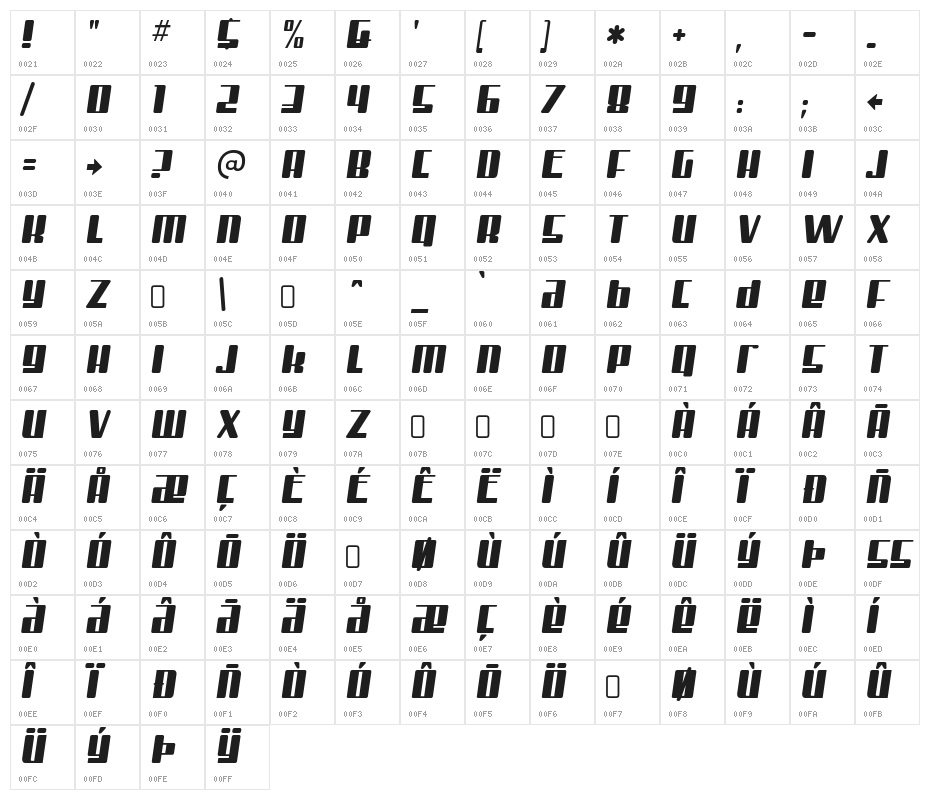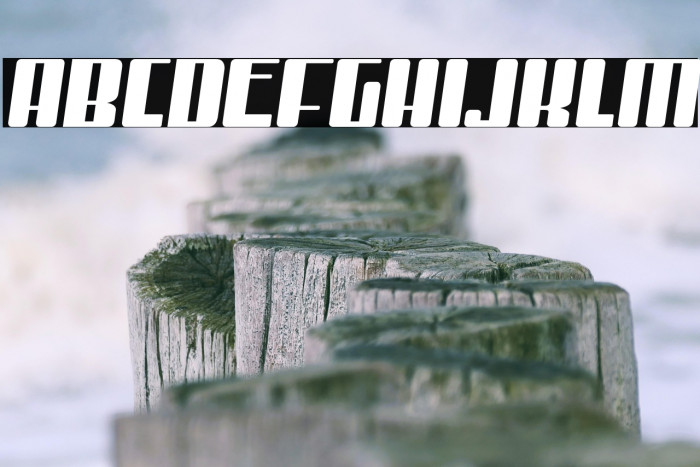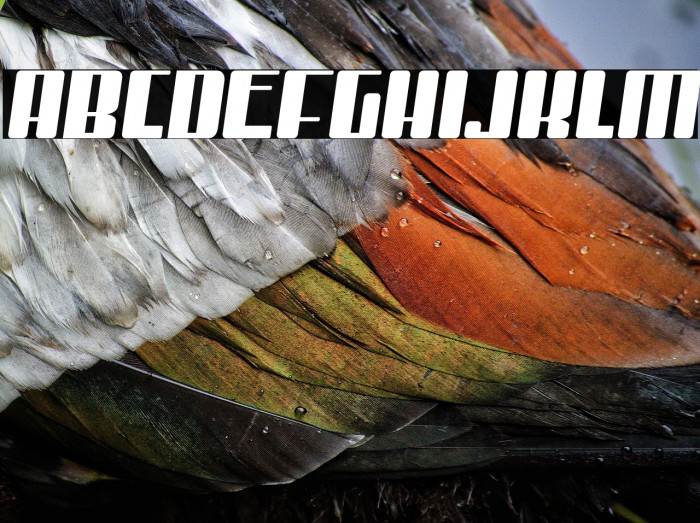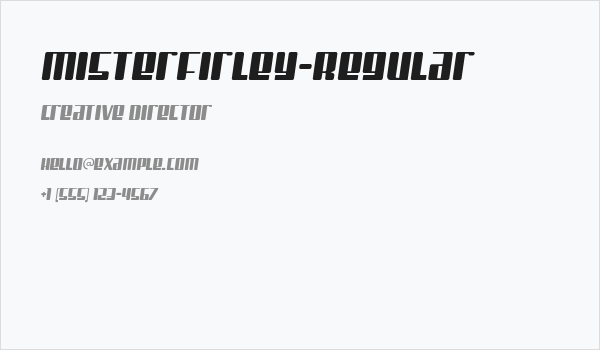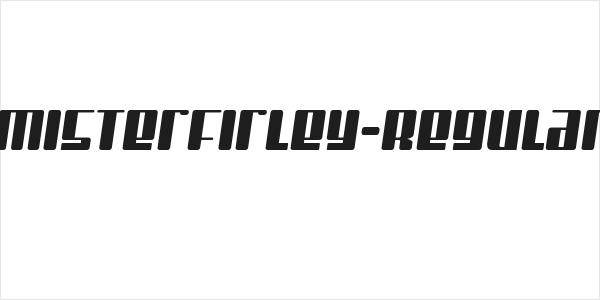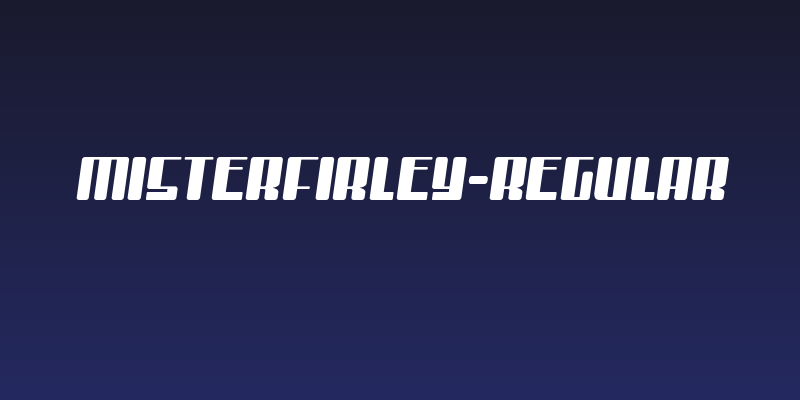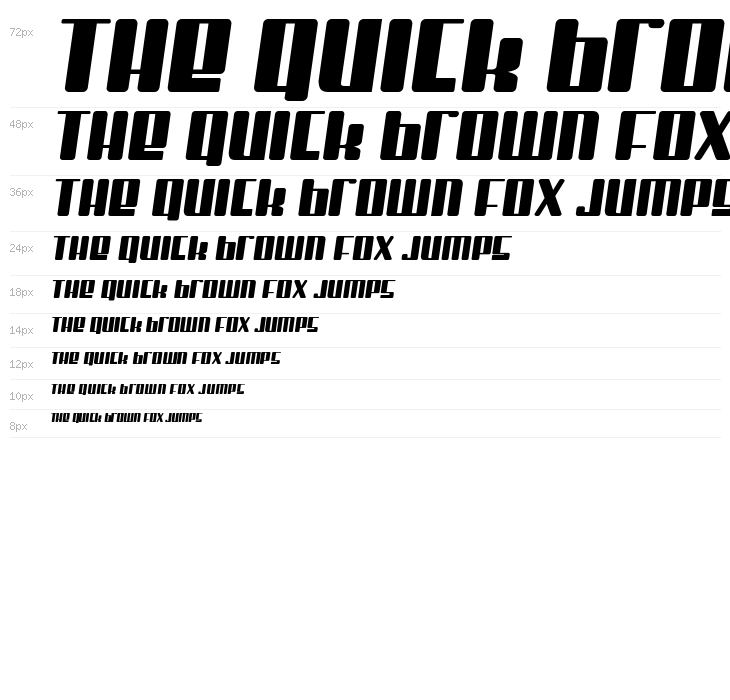
MisterFirley-Regular Font
MisterFirley-Regular Description
This font features a bold and dynamic style with a strong geometric influence. The characters are slightly slanted, giving a sense of motion and energy. The uppercase and lowercase letters maintain a consistent height, while the numerals are designed to match the overall aesthetic. The special characters are crafted to complement the boldness of the letters, making them suitable for impactful designs. The font's unique style is characterized by its thick strokes and angular edges, creating a modern and assertive appearance.
| Proposed Projects | Ideal for sports branding, dynamic posters, and modern advertising campaigns. |